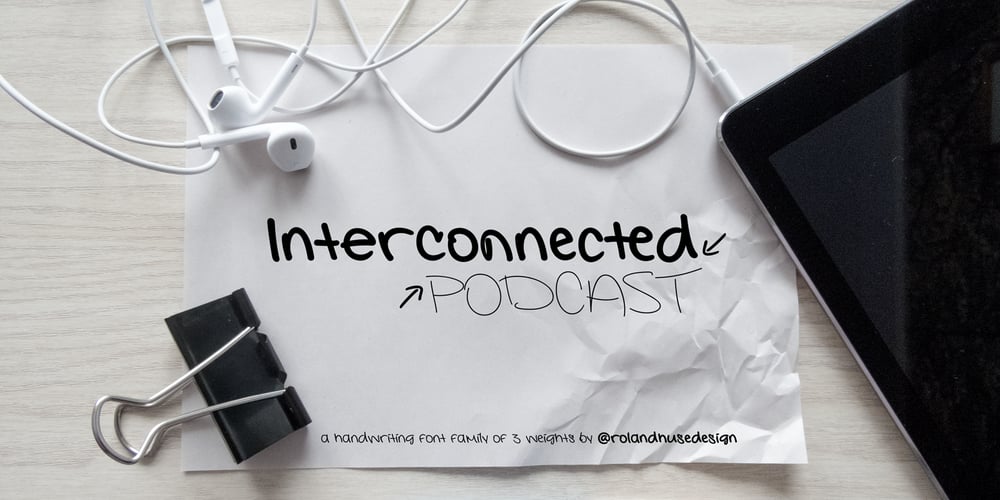
Interconnected
Interconnected font
Interconnected Font Family was designed by Roland Hüse and published by Roland Hüse Design. Interconnected contains 3 styles and family package options. A handwriting blockletter font inspired by and based on the handwriting of Dianna Woodward, author and editor of the Interconnected Podcast. I wanted to create a versatile, handwritten block letter typeface that is based on real handwriting and it has a personality and closest to the original version. I created three weights and made sure all the curves and edges are smooth and clean. The stroke width is designed to be uneven, especially in the regular (original) version to give it a real pen pressure look and feel, while these letters were formed naturally as being written. It contains at least one stylistic alternate for all the lowercase and uppercase letters, some lowercase has 3 and ligatures for fi, te, th, standard ligatures tt, jj, for a more organic look and flow. For the best result, make sure you have enabled the “discretional ligatures” and “contextual alternates” open type features, so it will switch between the stylistic sets as you type. In some cases you can also replace these manually for the best result. There are basic math symbols, arrows, currency, punctuation, and accents for Western and Eastern European languages 675 glyphs in total. This font family is great for just one word like a logotype or headlines, but also suitable for larger texts that requires typographic hierarchy. I can see this on * menus for coffee shops, * brochures at the waiting room of a children’s hospital, * flyers, magazines, * movie credits and * ebooks or * websites. I hope you will like and enjoy using this font – Happy creating and good luck with your work!